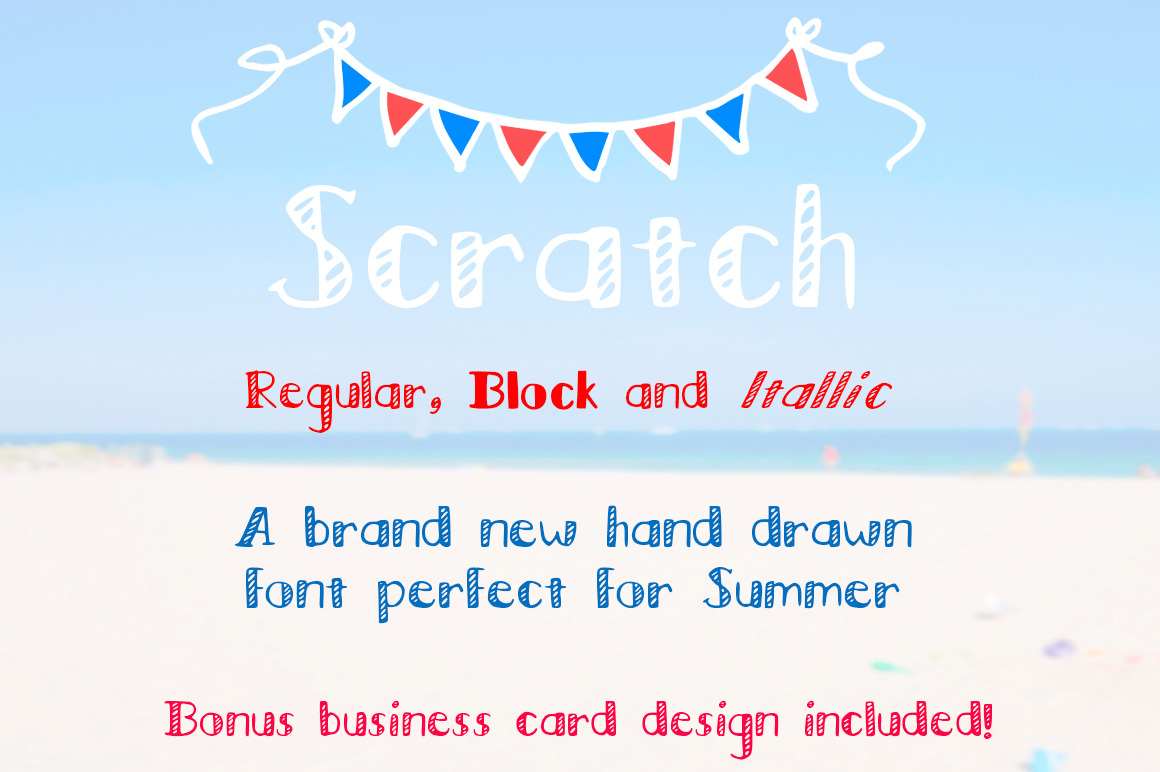
Scratch -Regular, Block, Italic Font
Scratch is a hand lettered font with a neat, quirky style perfect for summer projects, handcrafted businesses, and anything with a light hearted touch.
The font looks great layered to bring out the striped texture, making it a fun choice for party design, craft branding, and seasonal content.
Ideal for:
Party invitations and seasonal design
Handcrafted business and maker branding
Blog and website headings
Social media quote graphics
Craft tutorial and DIY content
Print projects and packaging